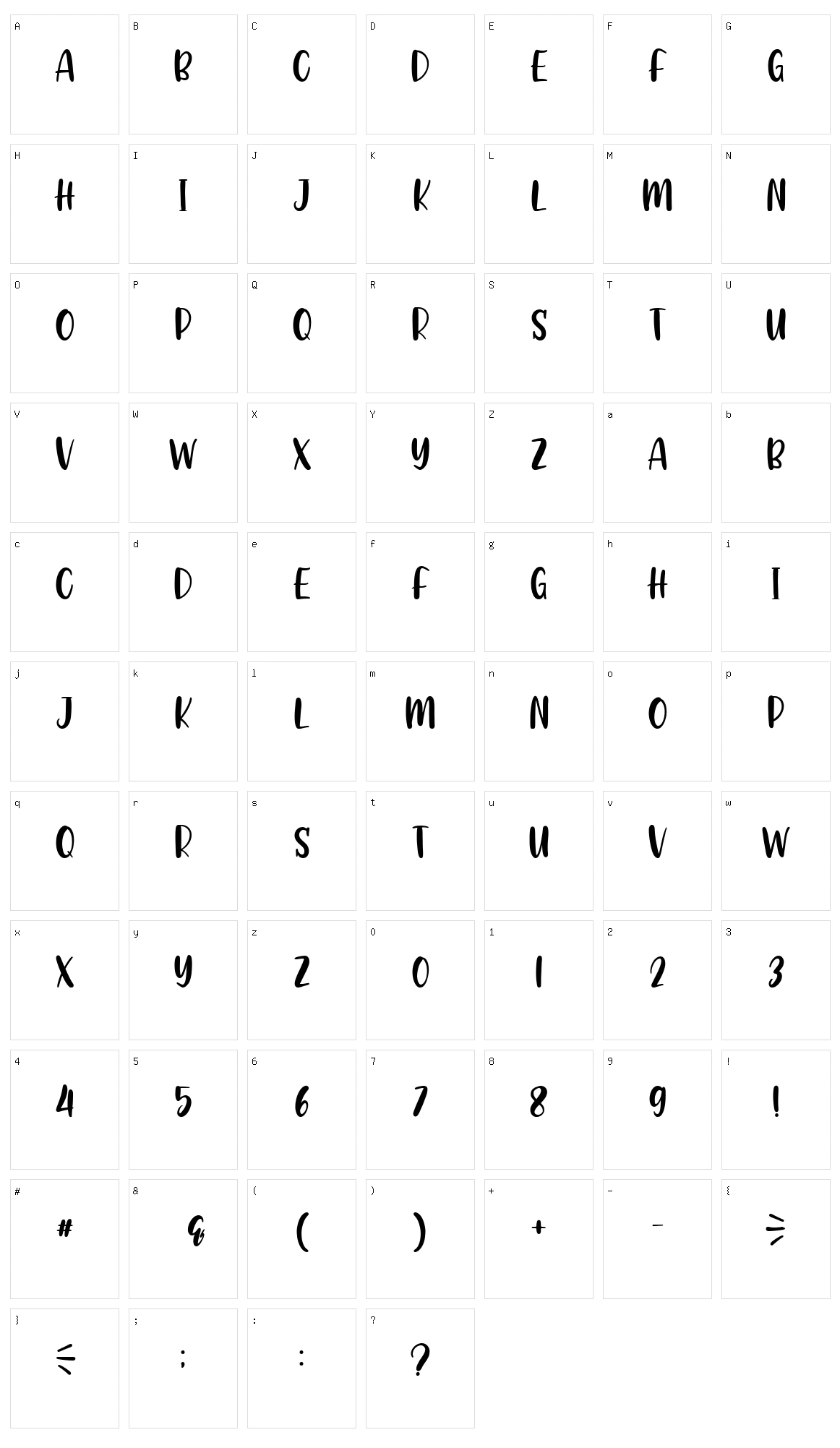
The free font Babyque is carefully designed by Creatype Studio, showcasing a thoughtful balance of creativity and usability and falls under the Cartoon font style. When you download the ZIP file, it contains only 25.57 KB of font files, making it lightweight and quick to download. Please review the license details below to understand permitted usage and distribution rights. If license information is not available, we recommend using this font for personal projects only or contacting the author directly for commercial usage permissions.